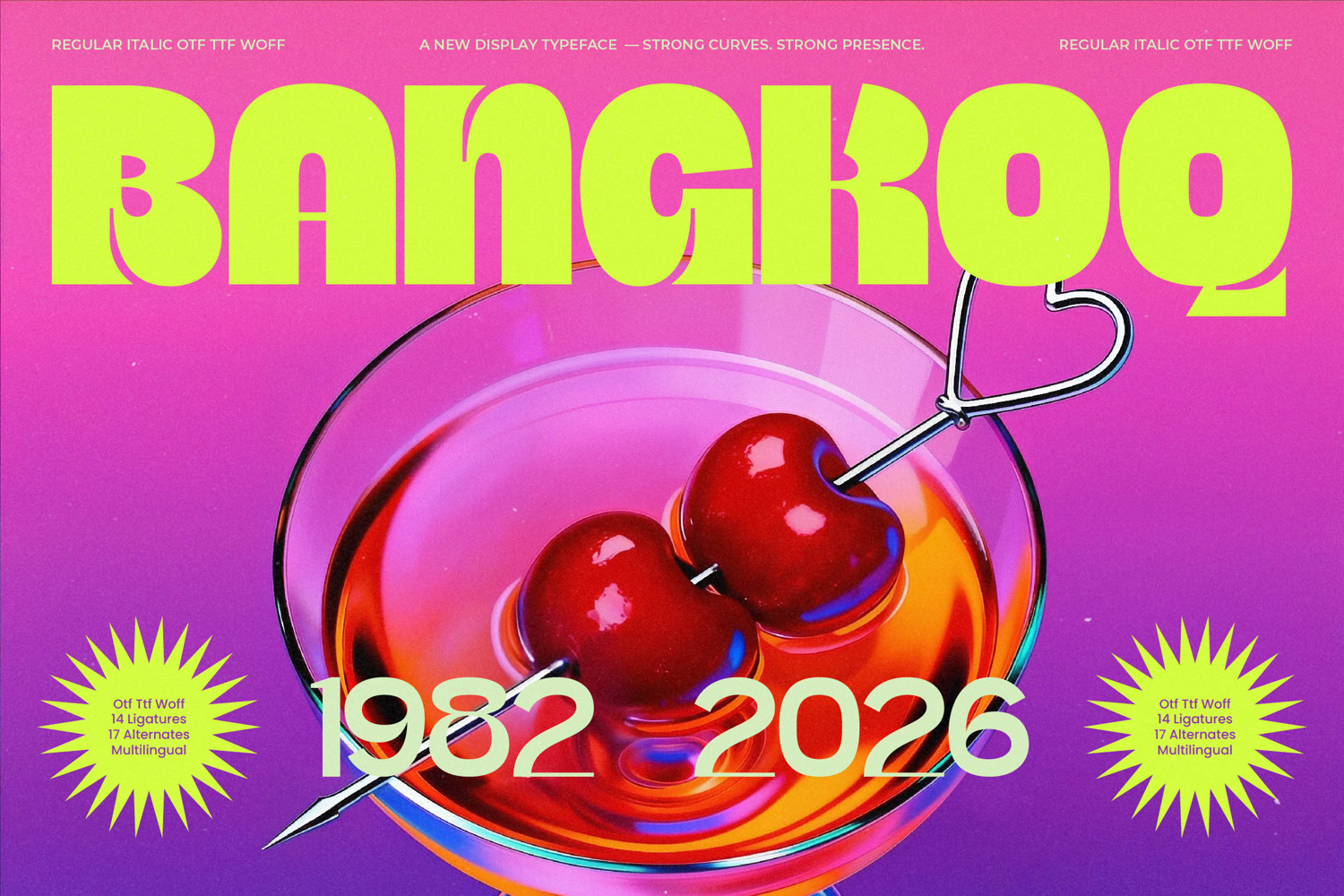
Bangkoq - Groovy Display Sans
Bangkoq is a bold display typeface built with strong curves and a confident presence. Inspired by retro aesthetics and expressive headline typography, it delivers high visual impact while maintaining a clean, modern structure. The smooth contours and distinctive letterforms make it ideal for branding, posters, editorial headlines, packaging, and statement logos.Designed for designers who want typography that stands out instantly, Bangkoq balances personality with readability. It works beautifully in large sizes, creating powerful focal points across print and digital media. Whether you're crafting bold campaigns, vibrant social content, or expressive visual identities, this typeface brings clarity, energy, and character to every composition.